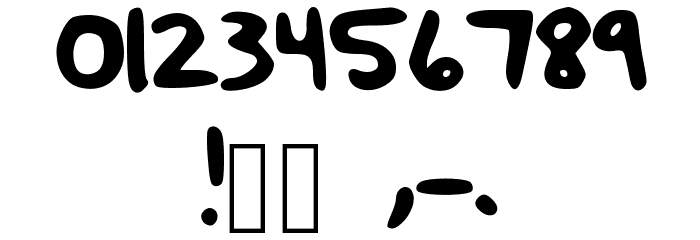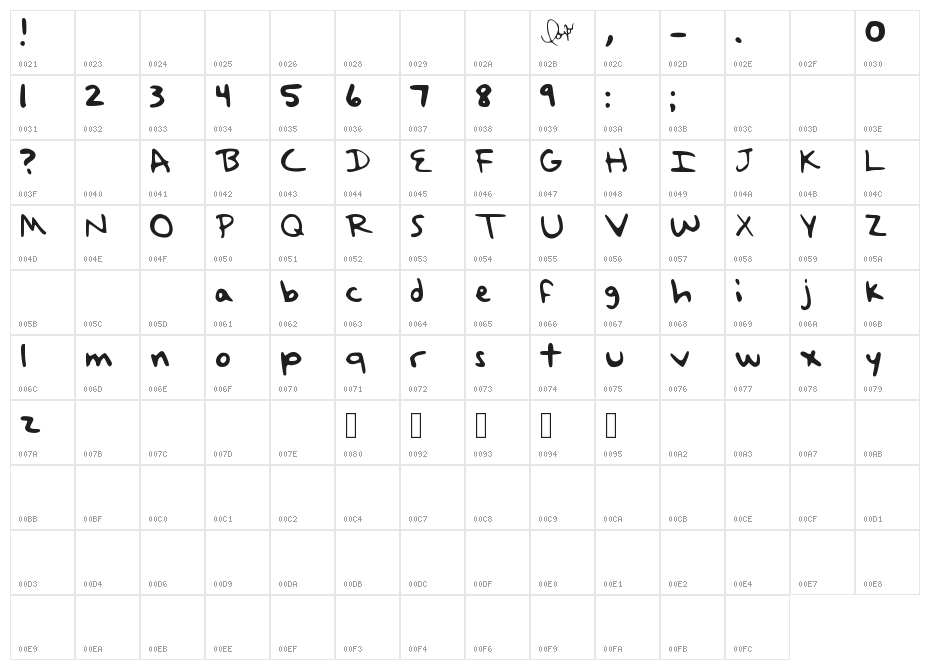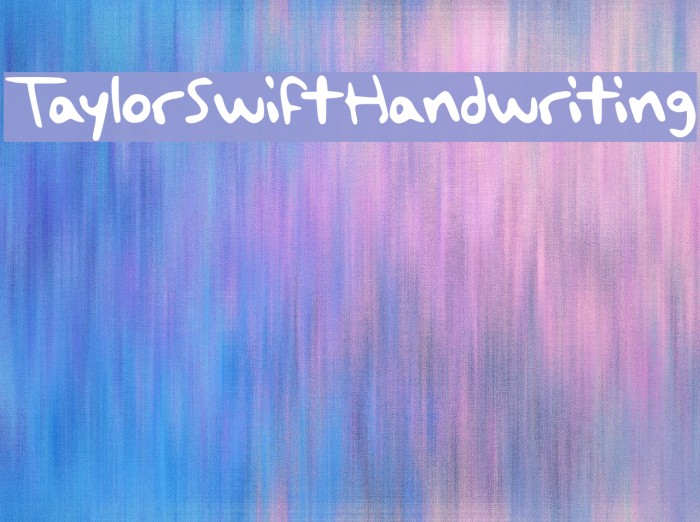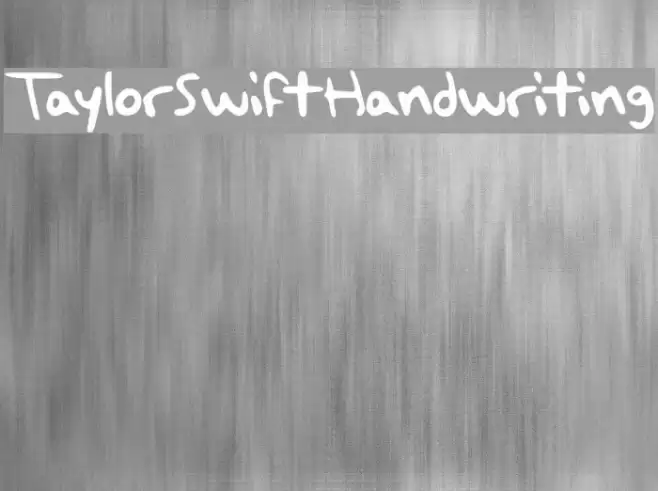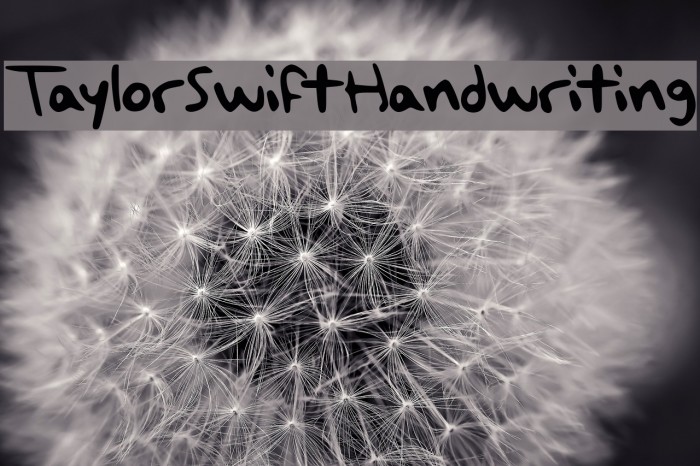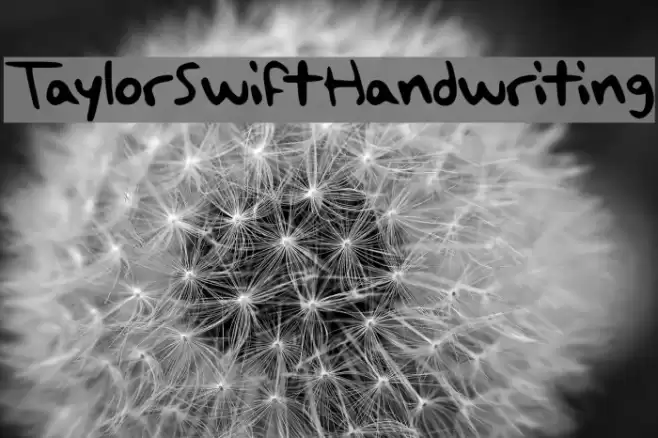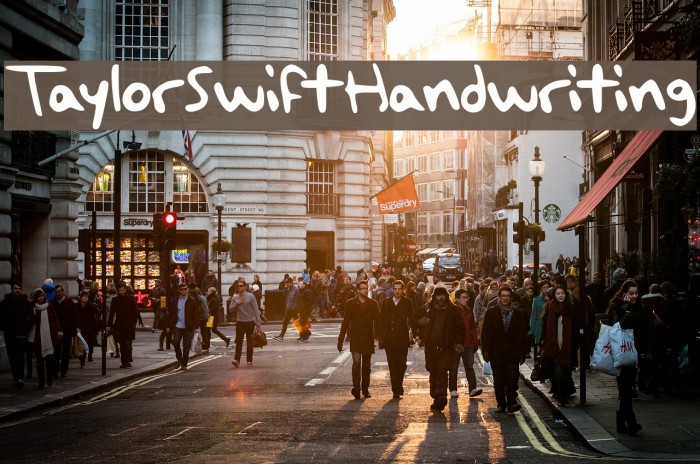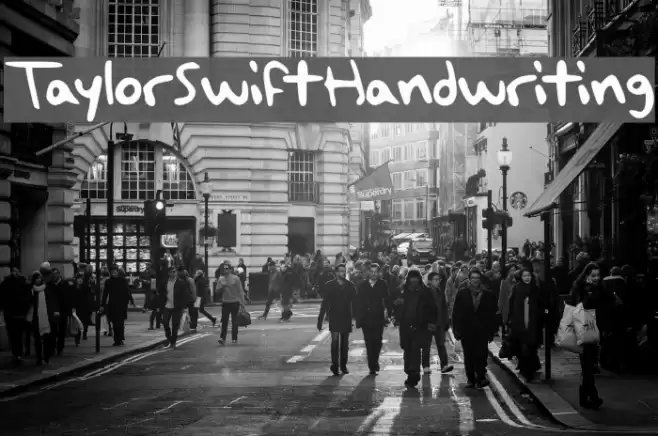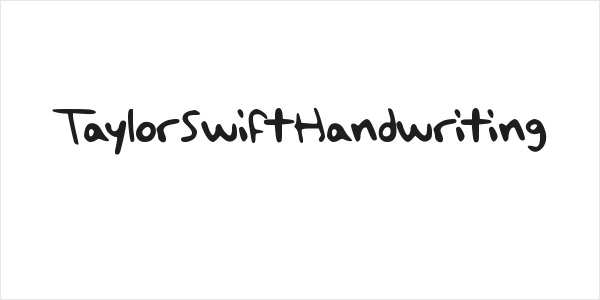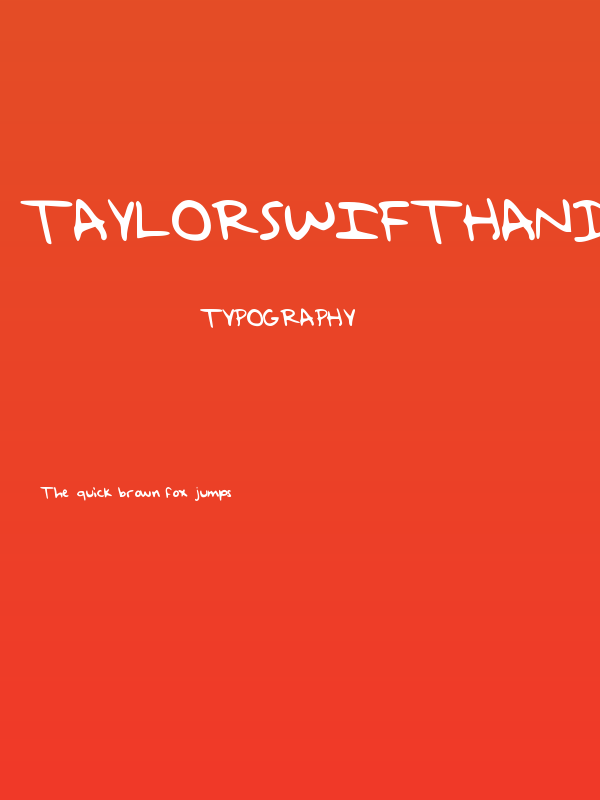
TaylorSwiftHandwriting Font
TaylorSwiftHandwriting Description
This font exudes a playful and casual handwritten style, reminiscent of personal notes or diary entries. The characters are slightly irregular, adding a touch of authenticity and charm. The uppercase letters are bold and rounded, while the lowercase letters maintain a consistent flow with a slight slant, giving the impression of quick, yet deliberate handwriting. The numerals are clear and easy to read, matching the overall informal aesthetic. Special characters are included, maintaining the same playful style, making this font versatile for various creative projects.
| Use Case | Headlines, Personal notes, Creative projects |
| Proposed Projects | Ideal for personal notes, invitations, greeting cards, and creative projects that require a personal touch. |